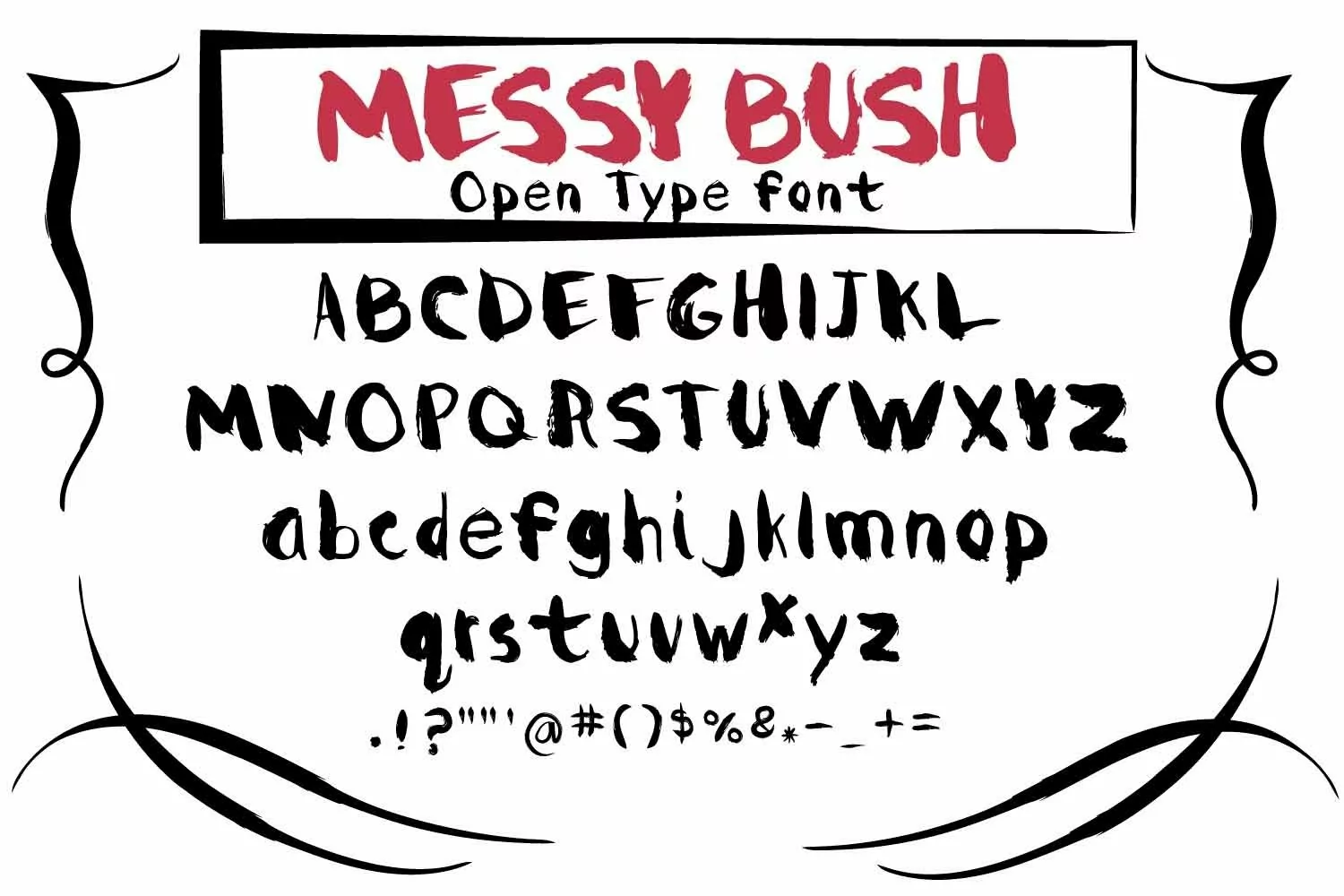
Messy Brush was created by using a watercolor brush pen. Each letter was designed and done with a free stroke which makes this font fun with lots of movement. You can use this display font for an edgy design for things such as rock concerts, outdoor ATV posters, or anywhere you need a fun messy brush font.